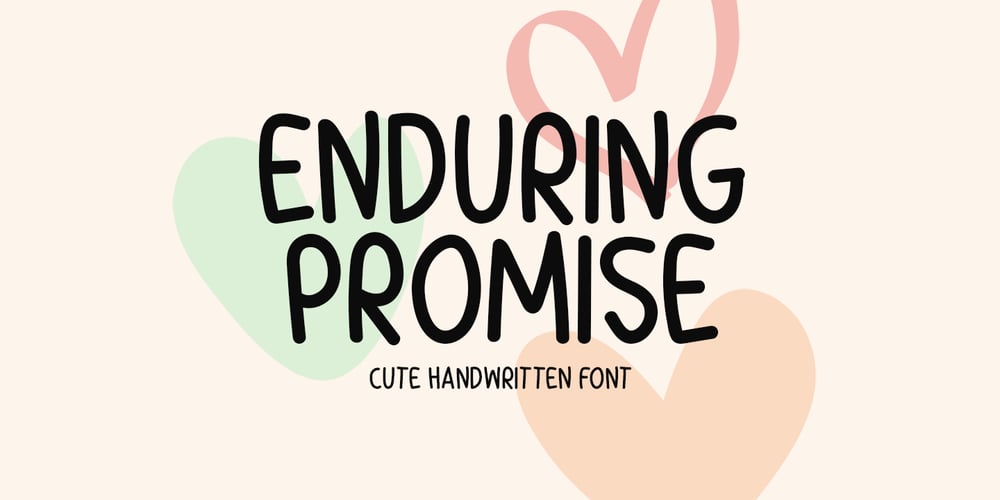
Enduring Promise Font Family was designed by Md Shohail Bhuian and published by Seemly Fonts. Enduring Promise contains 1 styles and family package options. Enduring Promise is an incomparable and simple-lettered handwritten font. It can easily be matched to an incredibly large set of projects, so add it to your creative ideas and notice how it makes them stand out!